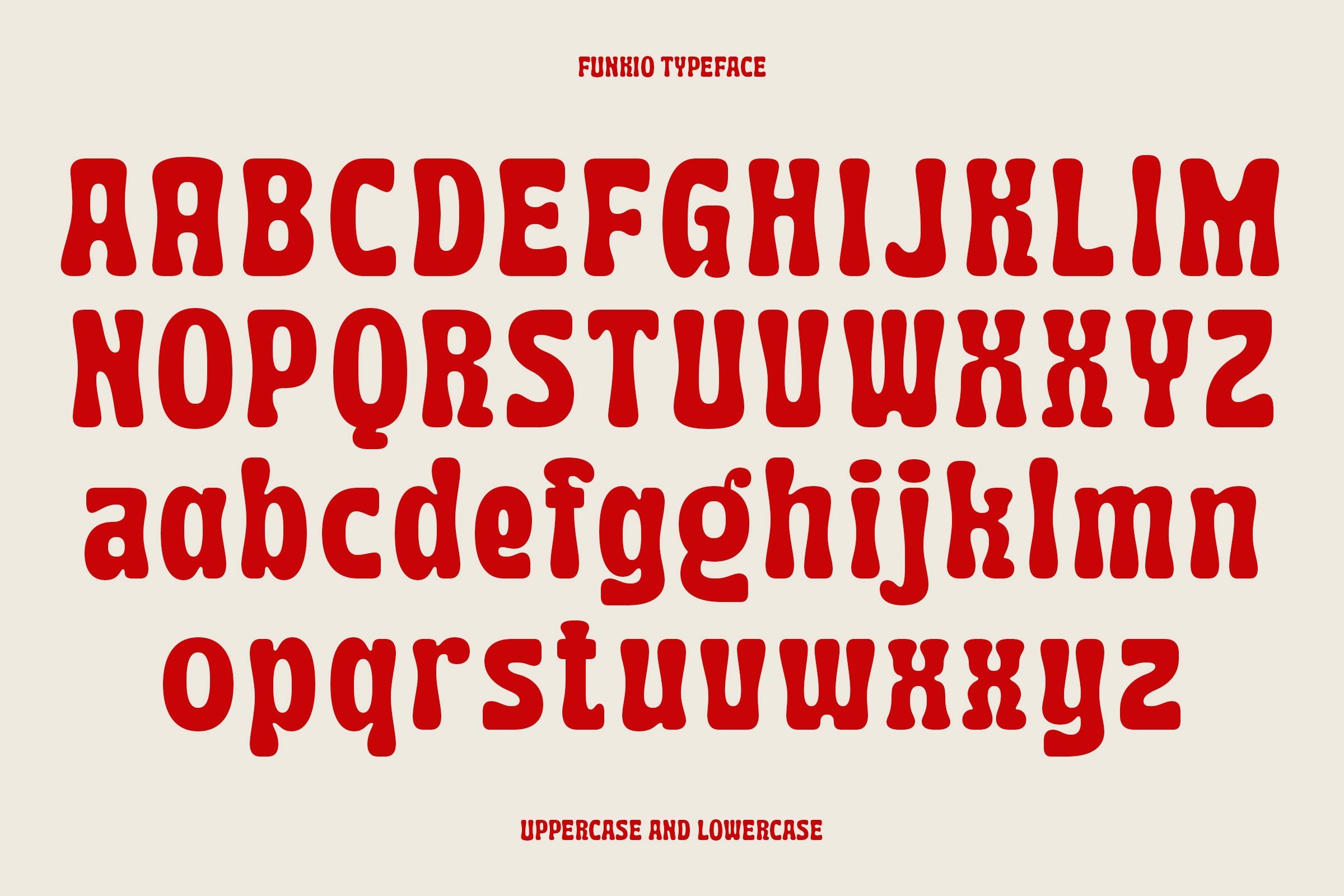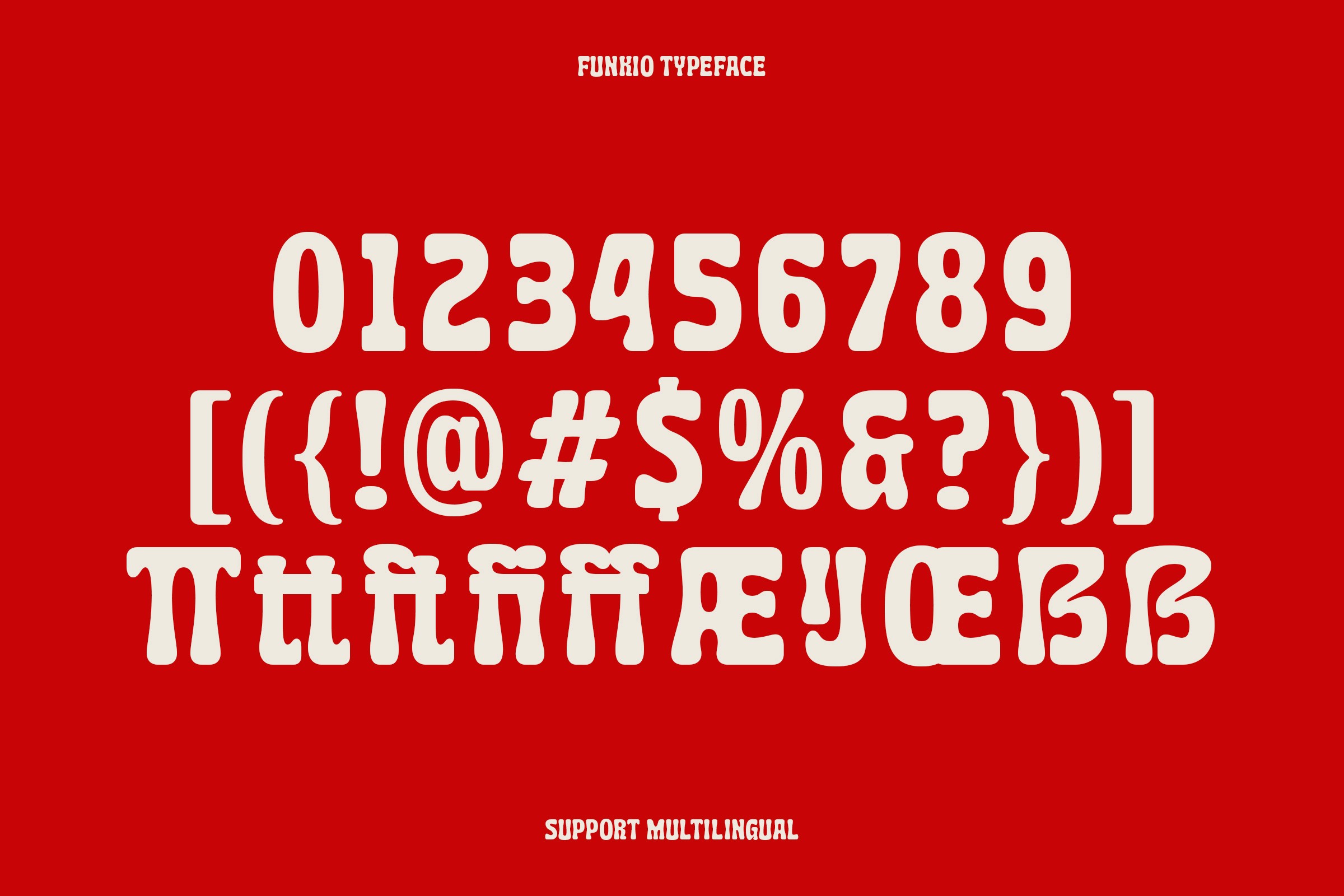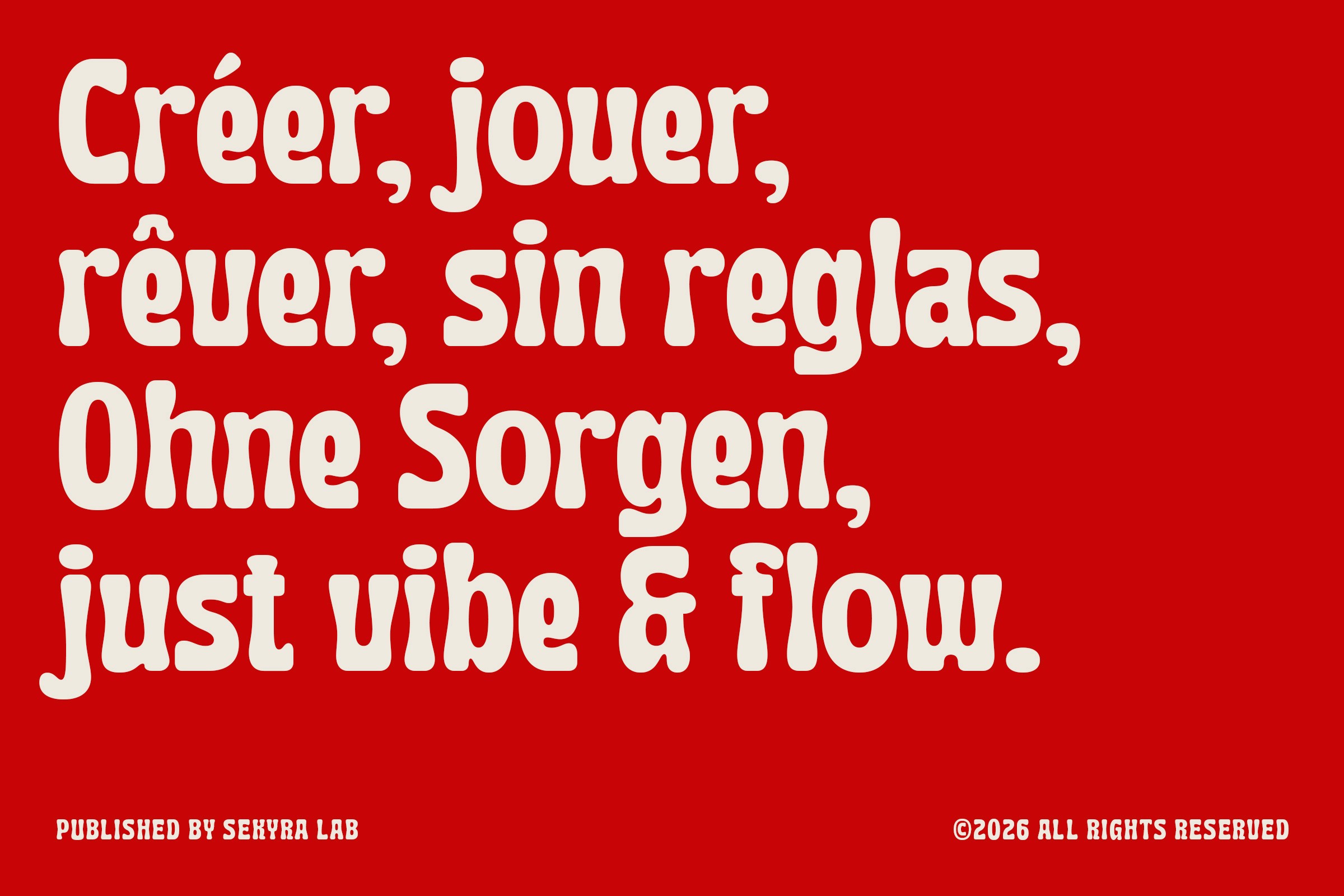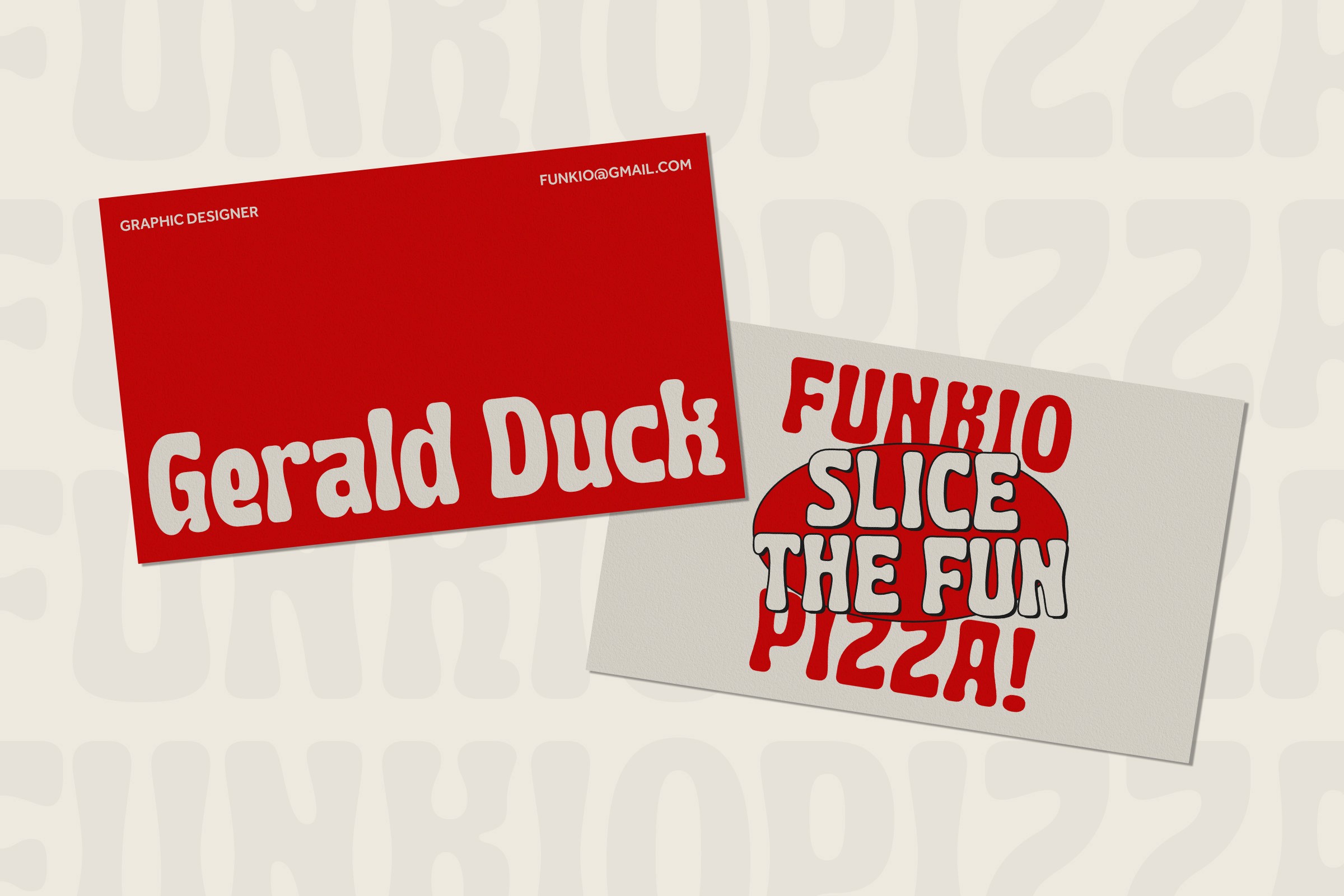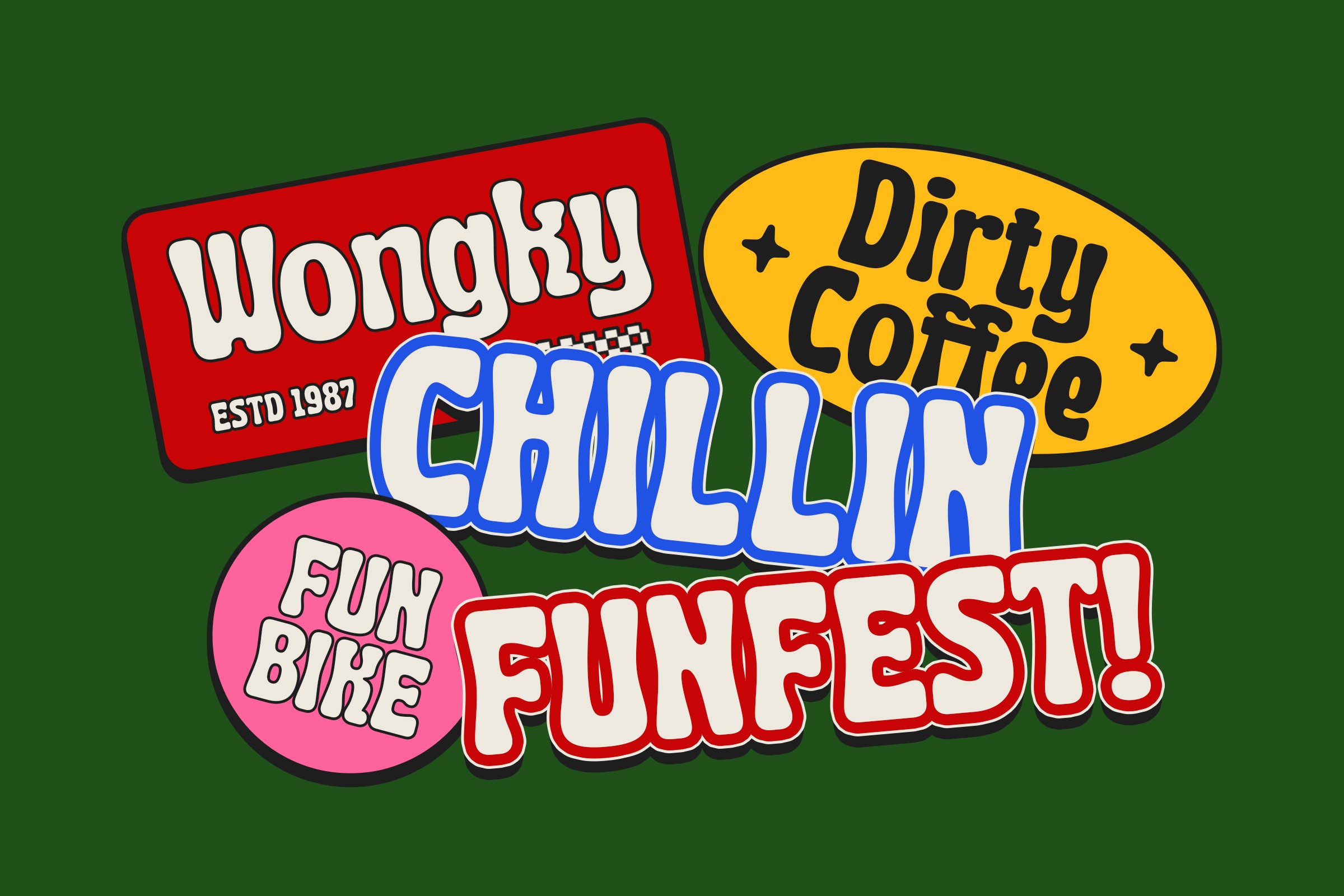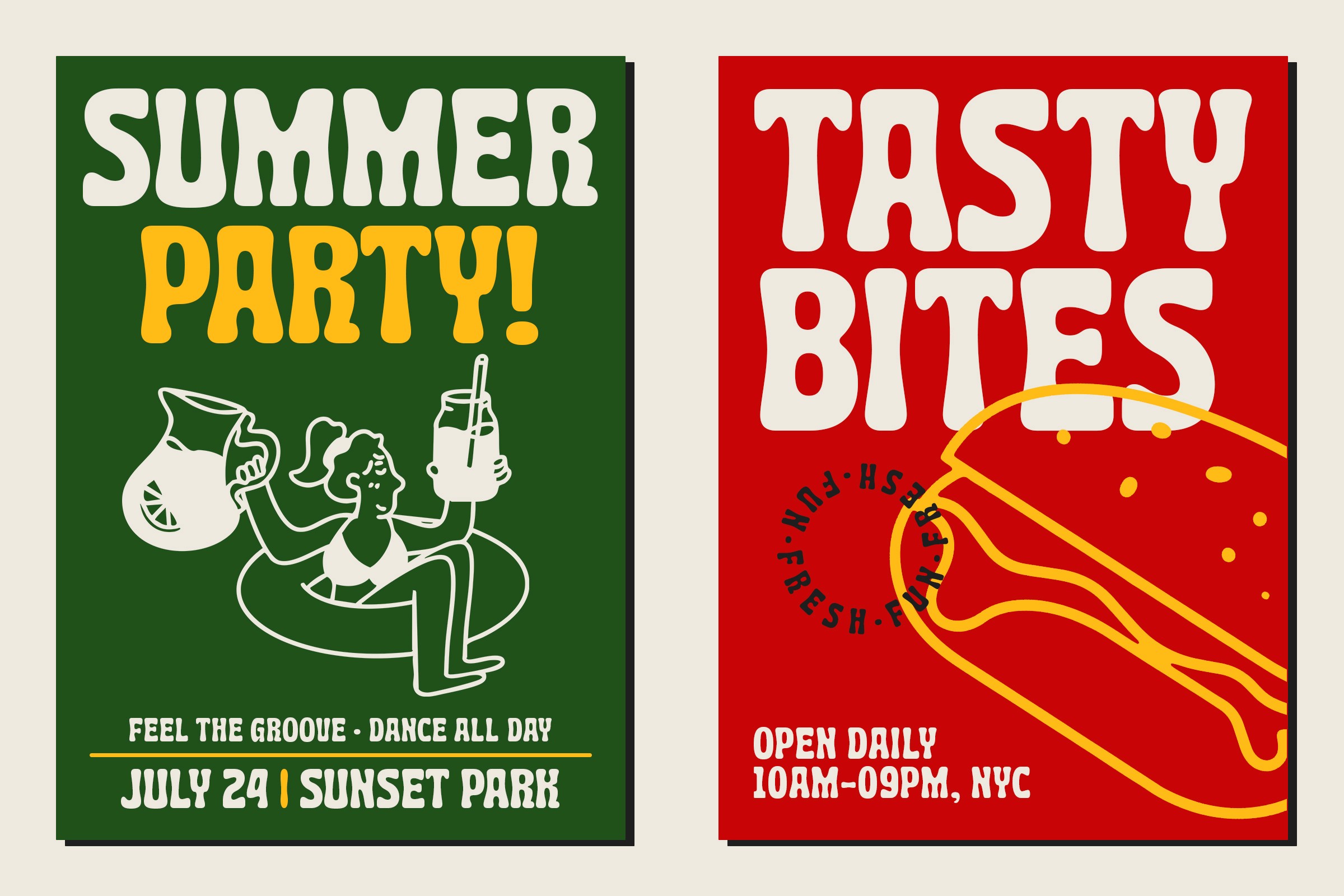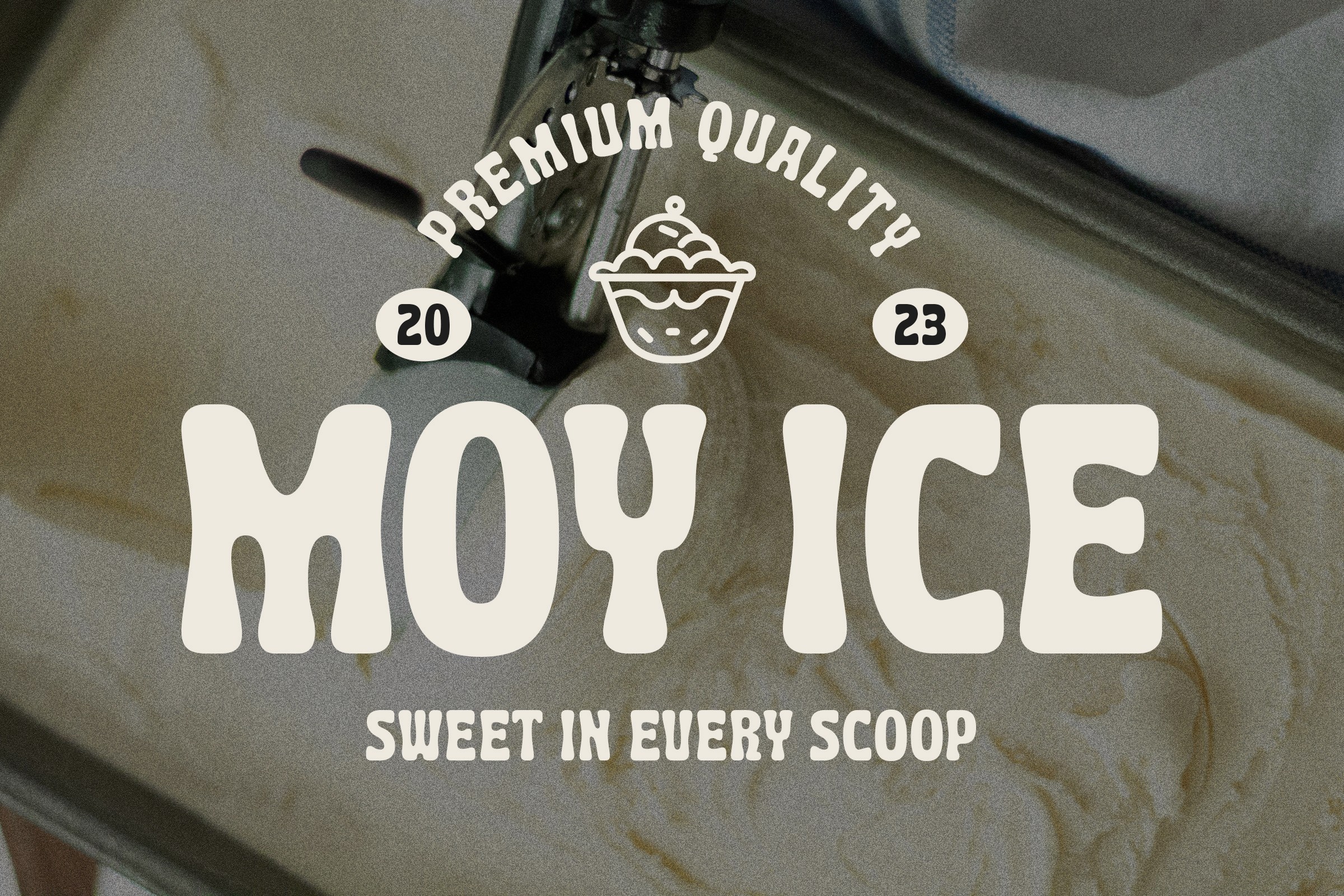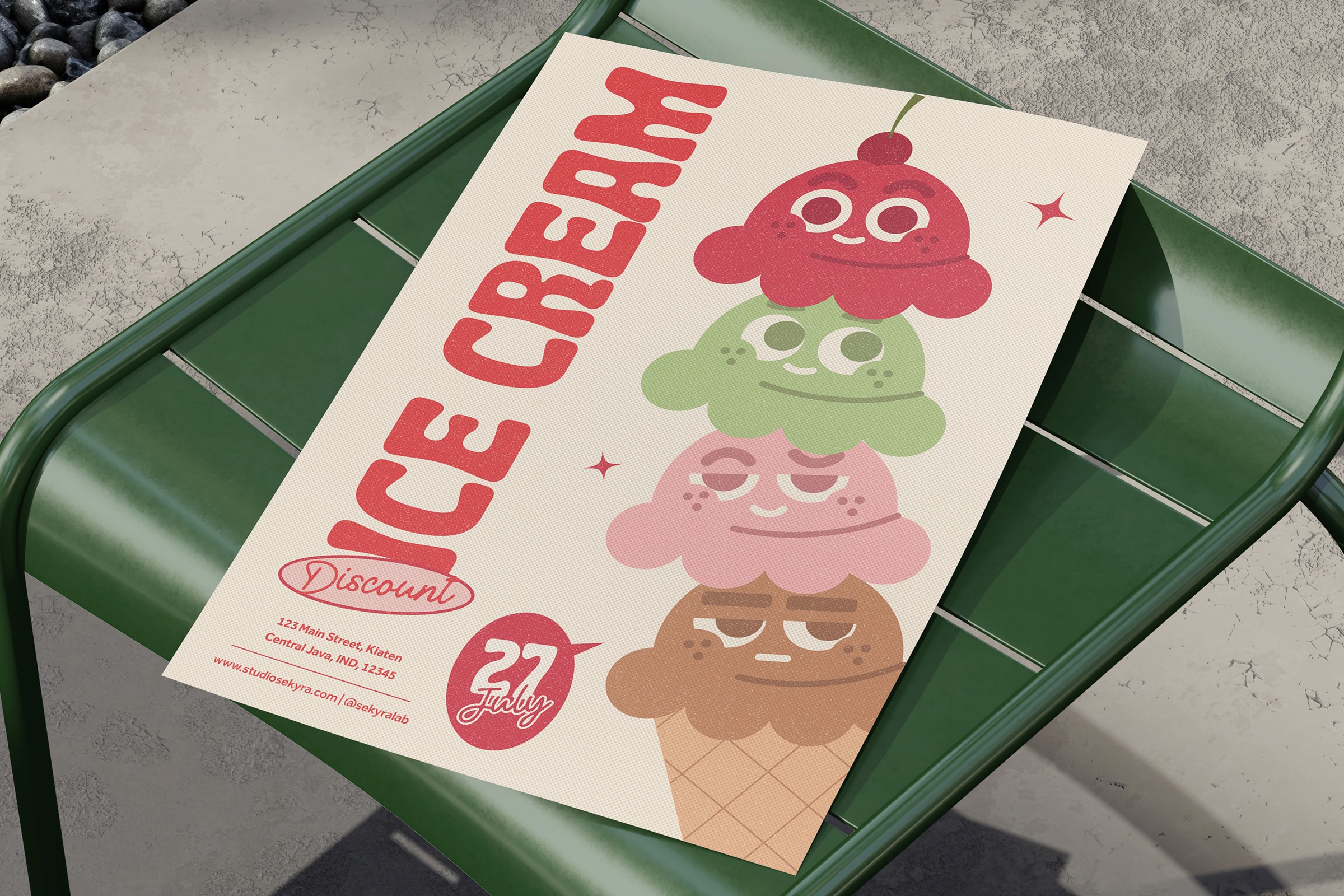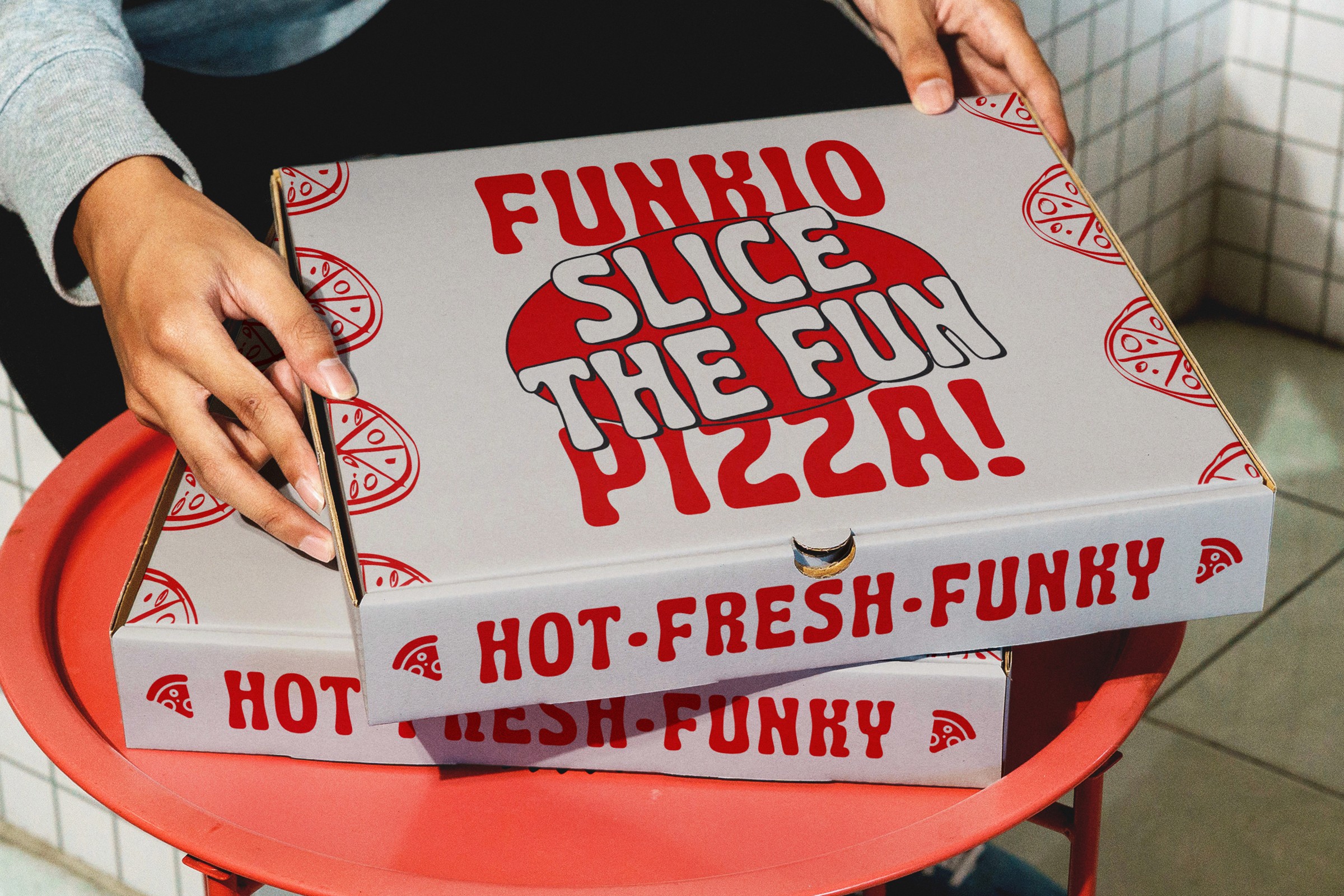
Funkio Font
Type
Funky Display
Styles
1 Styles
Release
2026
Funkio is a bold and playful display sans serif with chunky shapes and groovy personality. Designed to bring joy and energy into your typography, it delivers a nostalgic retro vibe with a modern twist—perfect for eye-catching designs that stand out and feel alive.
Key Features
Bold chunky display sans serif
Fun, groovy, and playful character
Smooth curves with soft edges
Eye-catching and highly legible
Perfect for expressive and energetic layouts
Multilingual support